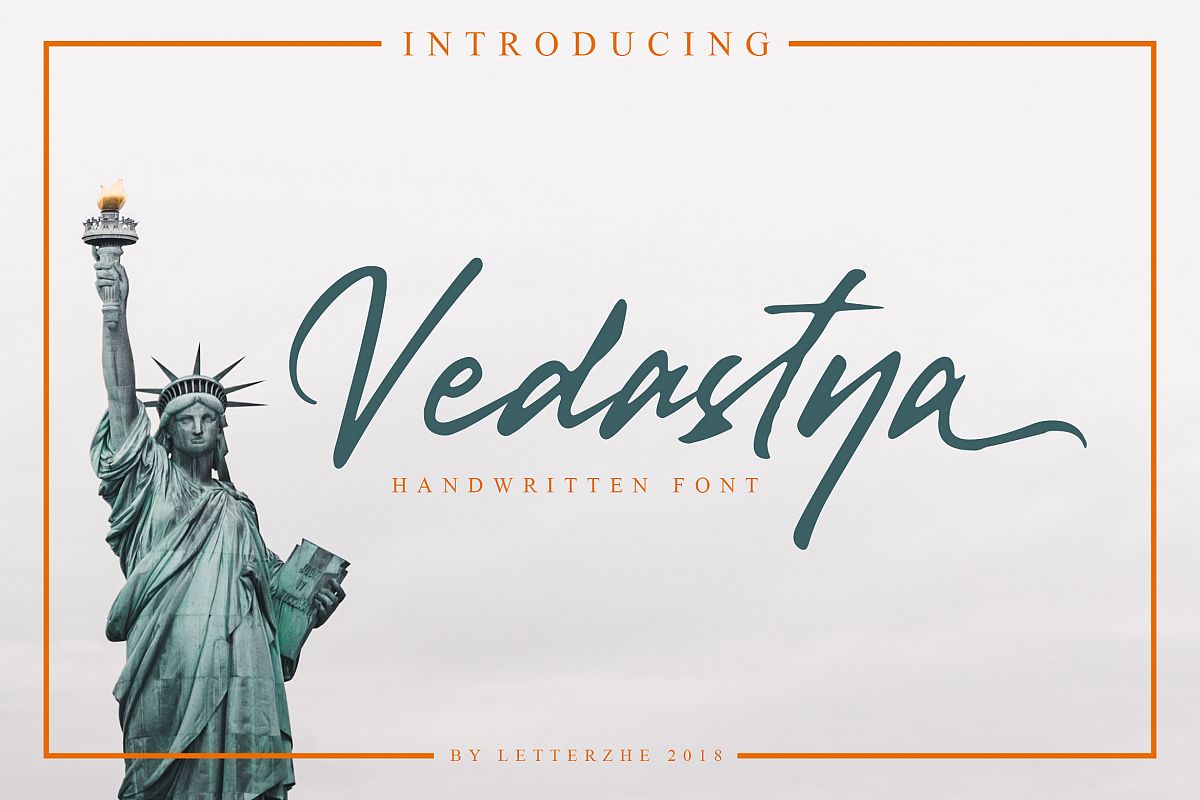
Vedastya Script Font
This is the newest product we created.
This font is beautiful and allowing you to make great typography.
The  Vedastya is good for logo, brand, poster, quotes, wedding invitation,
clothing, and apparel.